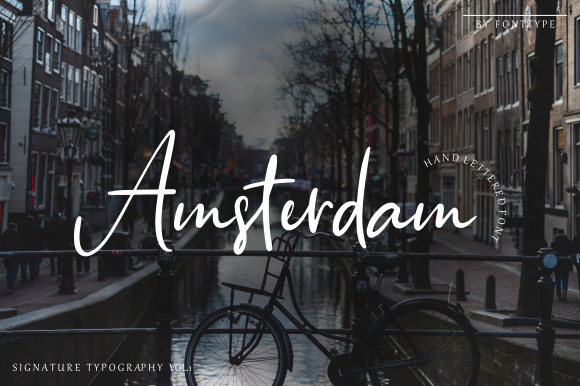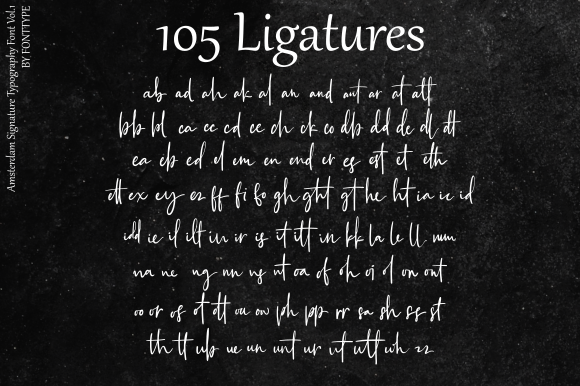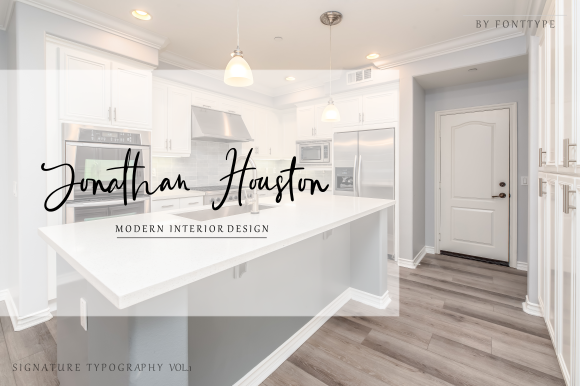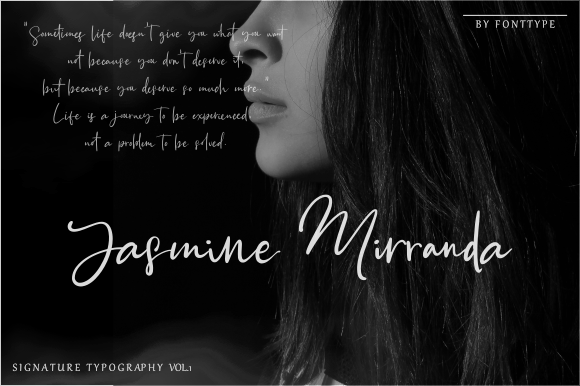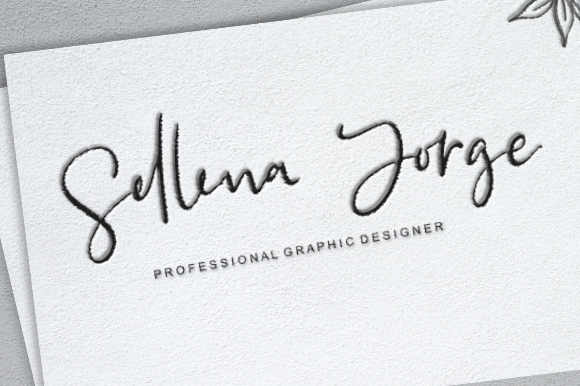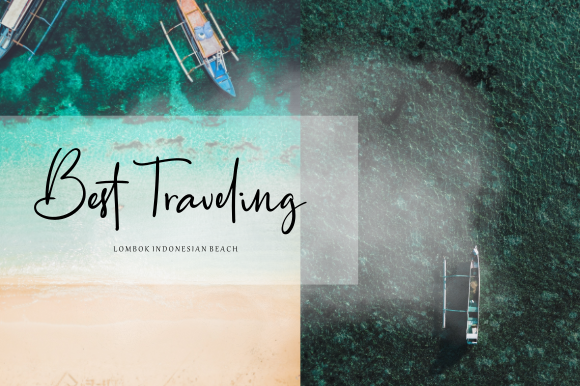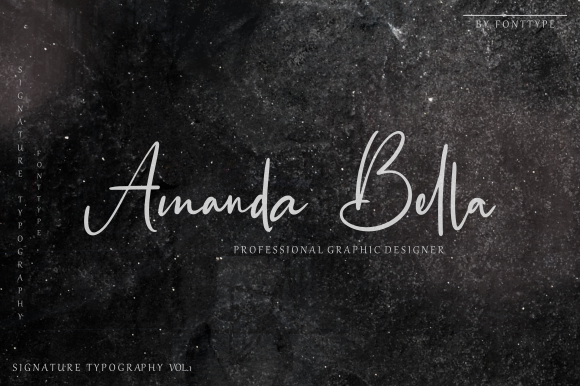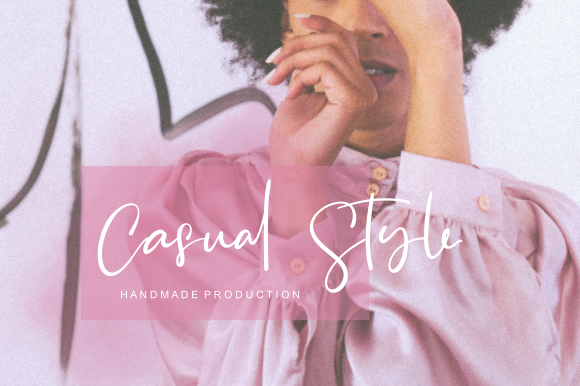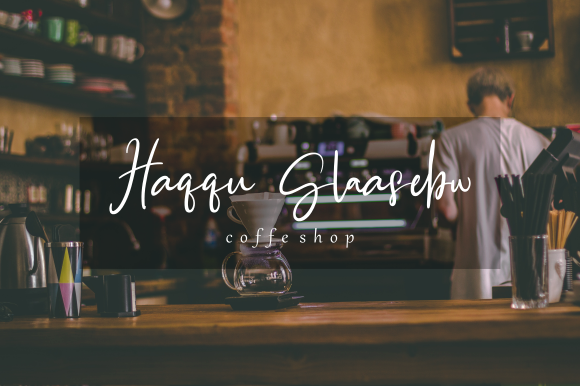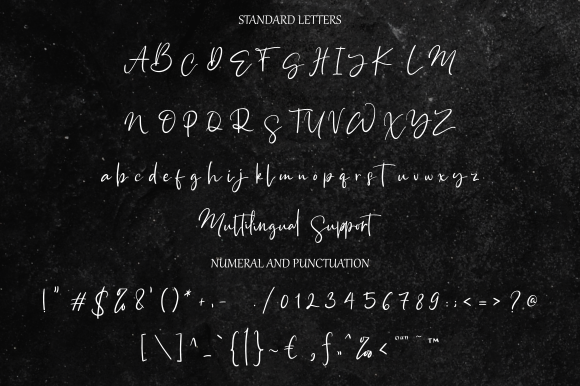
Amsterdam Font
About Amsterdam Font
Amsterdam is a magical handwritten font carefully created with a touch of elegance. This font is PUA encoded which means you can access all of the glyphs and swashes with ease! It features a varying baseline, smooth lines, gorgeous glyphs and stunning alternates.
Amsterdam looks stunning on branding projects, logos, wedding designs, social media posts, advertisements, product packaging, and any other projects that call for a handwriting touch.